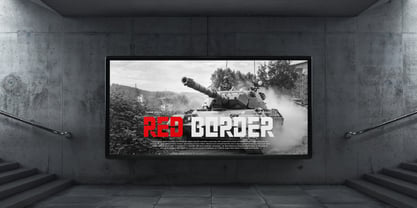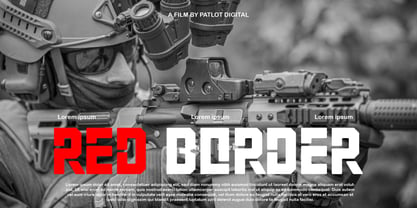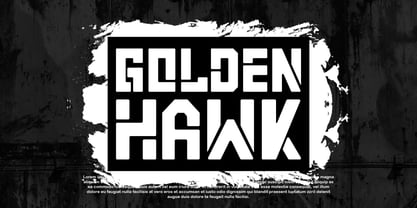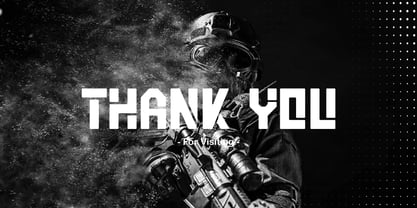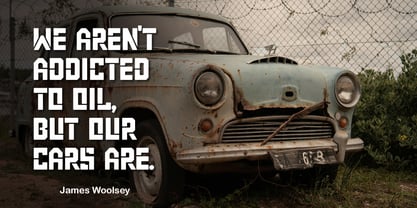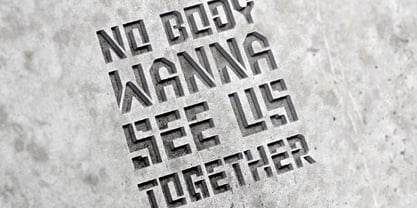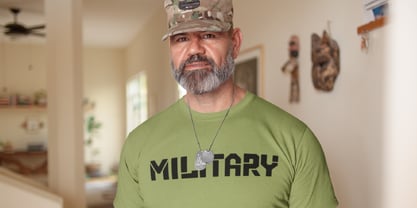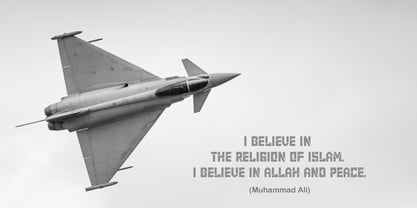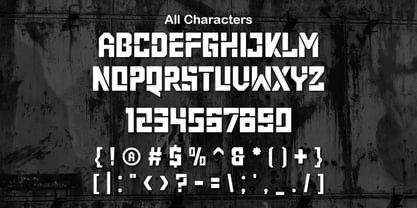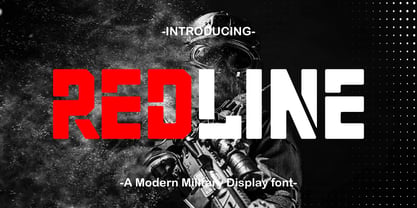
Red Line Stencil
par Patlot Digital Studio
La famille de polices Red Line Stencil a été conçue par Gugun Gunawan et publiée par Patlot Digital Studio. Red Line Stencil contient 1 styles.
Red Line Stencil is a collection of modern stencil-style fonts designed for military technology. This unique set allows for the creation of distinctive designs that reflect your Army. Perfect for bold, futuristic applications, Red Border Stencil easily adds a touch of authority to any project you work on.
Its versatility is evident when creating everything from t-shirts and logos to movie screens, book covers, and stationery. Boost your marketing efforts, enhance your blog or magazine, and make your brand stand out with the dynamic and innovative appeal of Red Border Stencil!